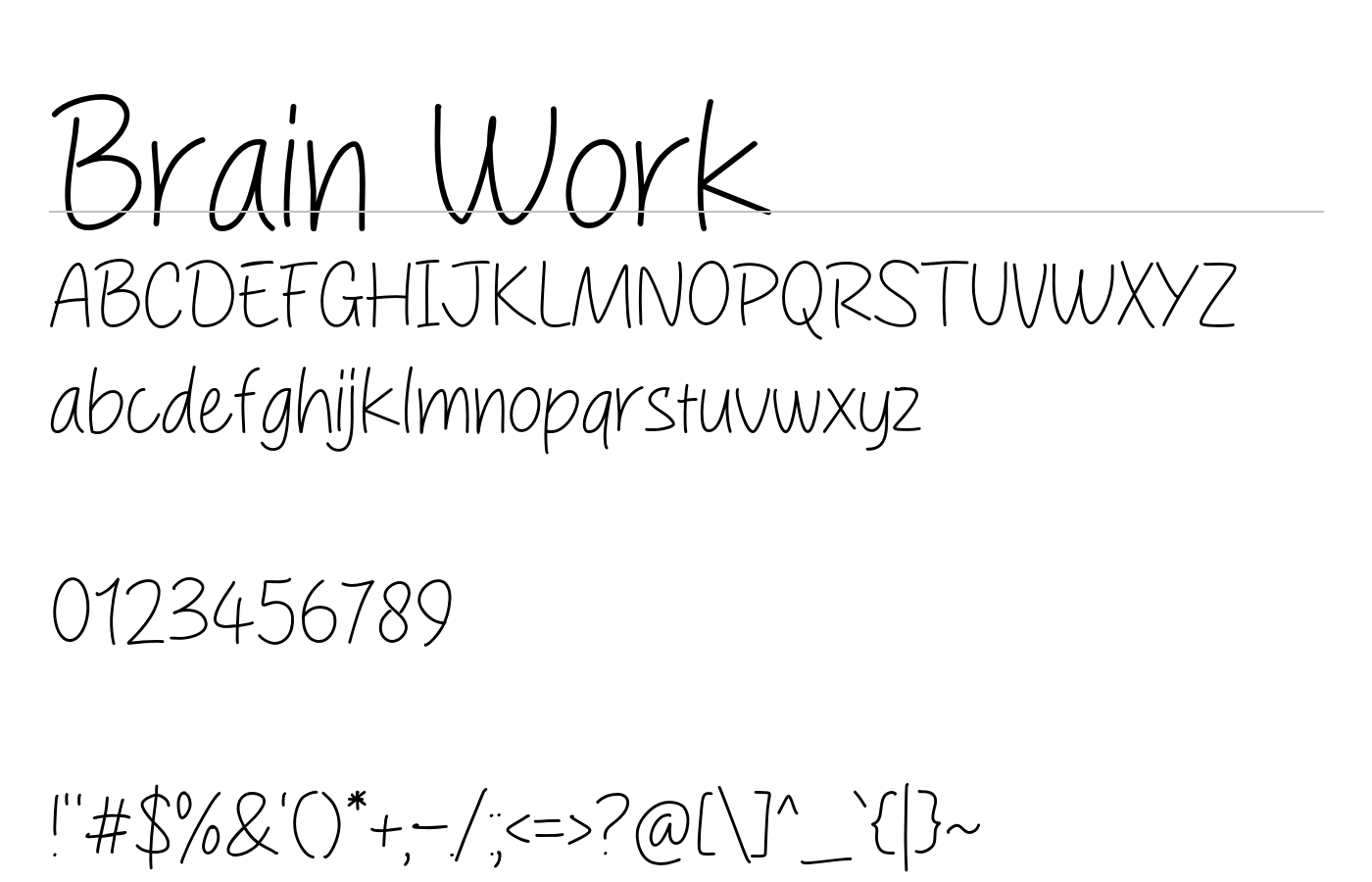
Brain Work is a light, handwritten sans serif font with a playful and casual style, featuring tall, narrow letterforms and a consistent, smooth stroke. Its friendly and approachable look makes it ideal for creative projects, children’s materials, informal branding, and anything needing a personal touch. This font works well in headlines and short texts where an inviting, easygoing vibe is desired.
Brain Work Font
About Brain Work Font